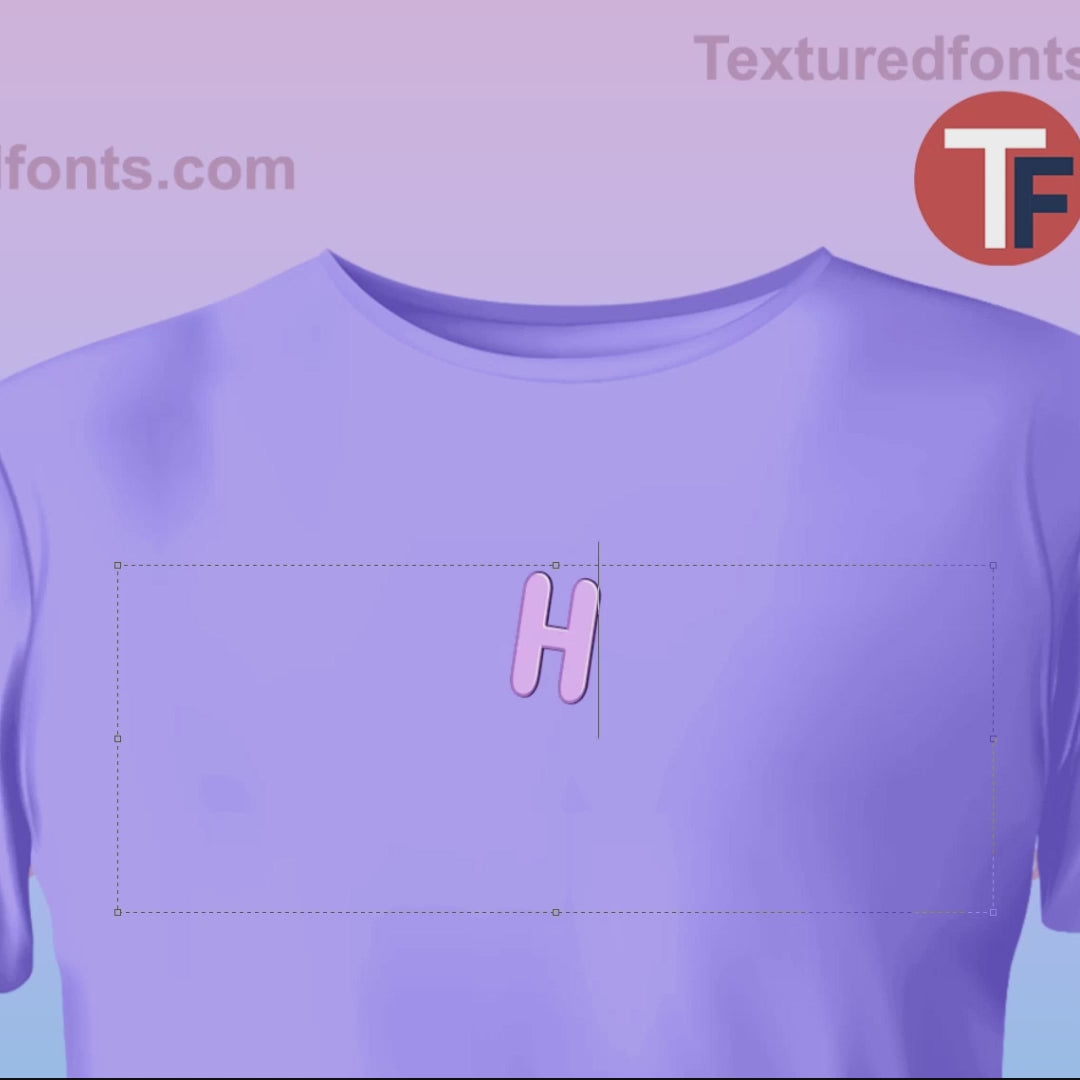
Easter Colorful Festivity Font Textured
Easter Delight Typography
Celebrate the joy and renewal of Easter with our special Easter font, a vibrant and spirited creation inspired by the springtime festival cherished around the world. This font embodies the essence of Easter, from the blooming flowers and bright, pastel colors to the themes of hope, rebirth, and joy that define the holiday. Perfect for event planners, educators, crafters, and anyone looking to infuse their projects with the warm, welcoming spirit of Easter, this typeface invites you to create designs that capture the beauty and serenity of this special time of year.
The Easter font is incredibly versatile, suitable for a variety of creative and celebratory projects:
- Greeting Cards and Invitations: Design heartfelt Easter greetings or invitations to springtime gatherings and egg hunts.
- Educational Materials: Create engaging learning resources that explore the cultural and historical aspects of Easter.
- Event Decorations: Craft banners, signs, and table settings for Easter brunches, church events, or family get-togethers.
- Merchandise Design: Develop T-shirts, mugs, and tote bags that capture the joy of Easter with quotes and imagery.
- Social Media Campaigns: Stand out with eye-catching graphics that spread the message of renewal and hope.
- Website Design: Update your site with a festive Easter theme that welcomes visitors with the warmth of the holiday.
- Packaging Design: For Easter-themed products, incorporating the font into your packaging adds a touch of seasonal charm.
- Digital Content Creation: Enhance videos, thumbnails, and online content with Easter flair, perfect for lifestyle bloggers and content creators.
- Comprehensive Character Set: Equipped with an extensive selection of characters to support a wide range of creative projects, from simple designs to elaborate compositions.
The Easter font is not merely a collection of letters; it's an invitation to celebrate the renewal, joy, and warmth that Easter brings. Whether used for personal projects, community events, or commercial endeavors, this font adds a layer of charm and festivity, making every creation a vibrant tribute to the spirit of the season. Dive into the world of Easter, and let your designs bloom with the happiness, color, and serenity that define this beloved time of year.